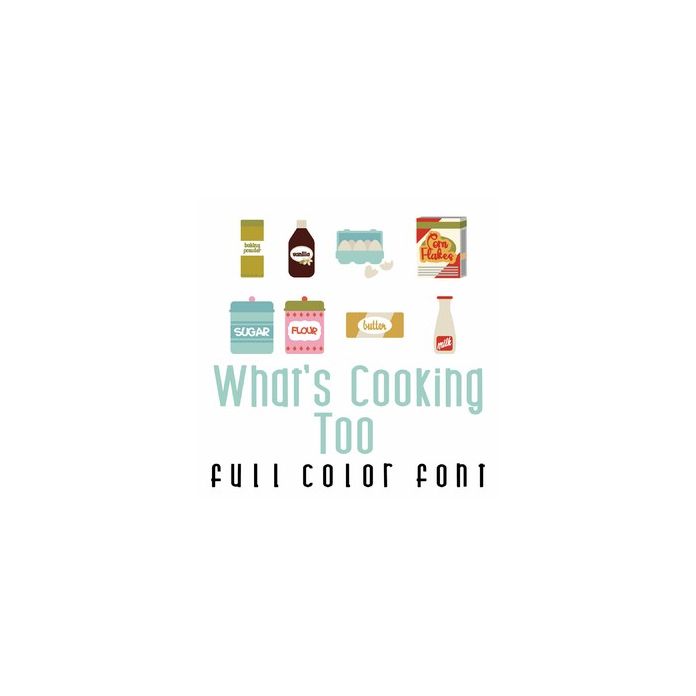
This adorable full color doodlebat font features all the fun ingredients you need for baking. Perfect for cards, crafts, gifts, decor, scrap book pages, planner stickers and more!